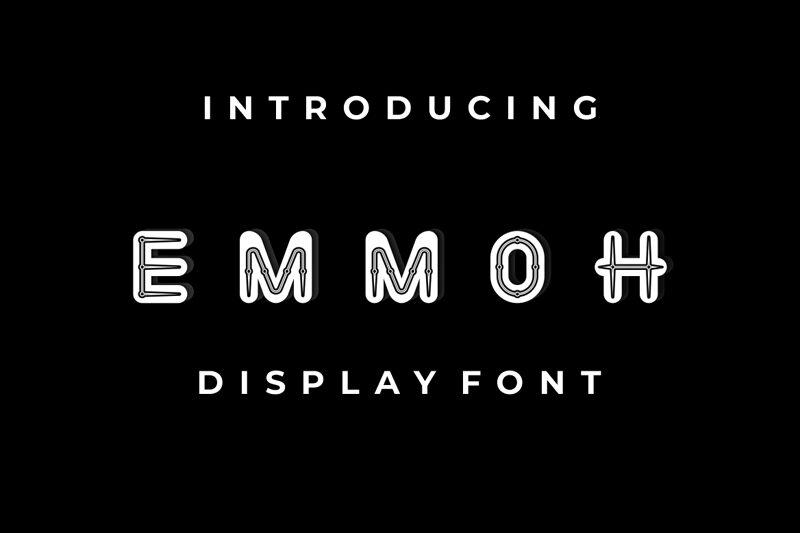
Emmoh font by Gilang Ternadho is a decorative display typeface with an ornamental and retro-inspired design. With bold letters, this font features sophisticated art deco influence along with delicate geometric elements and intricate patterns. The entire alphabet is clearly readable and most details are placed on the interior of the text characters.
EMMOH
Gilang Ternadho